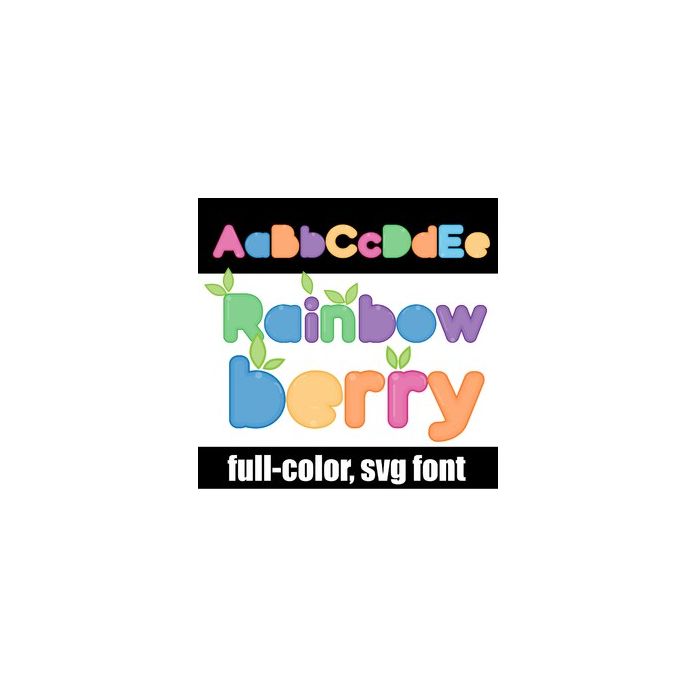
This full-color font features a rainbow-color palette in berry-like lettering. There is a secondary color with different leaf configuration of each letter you can access through your system's or Silhouette's glyph map.